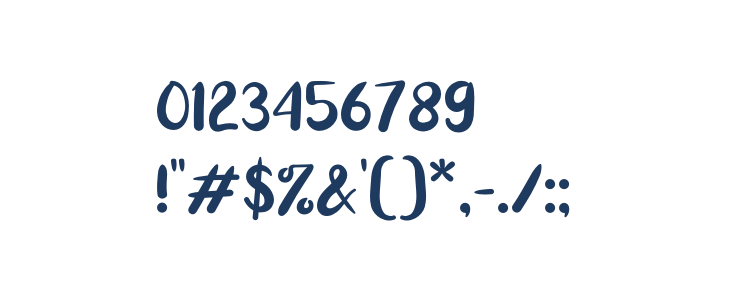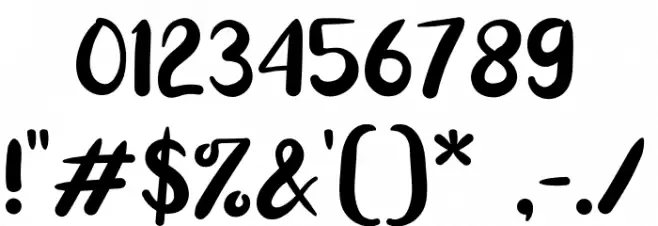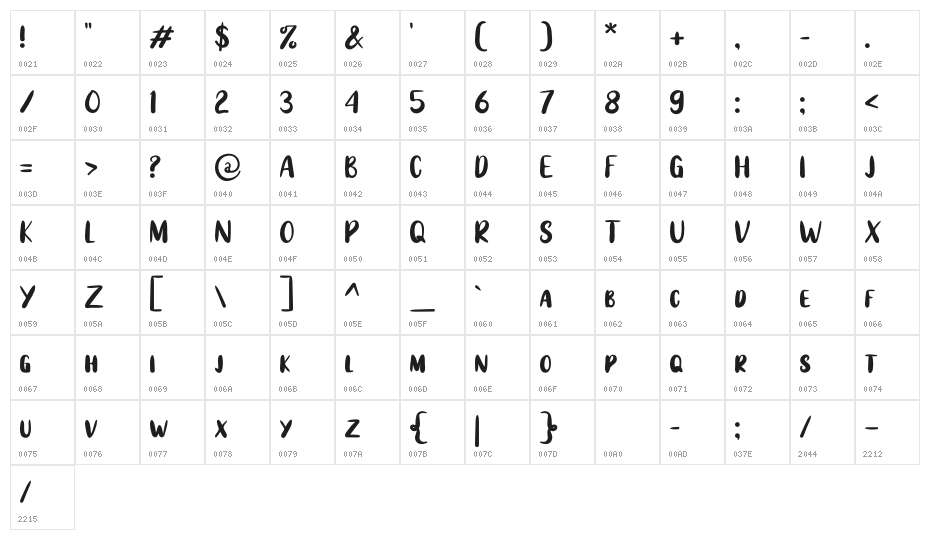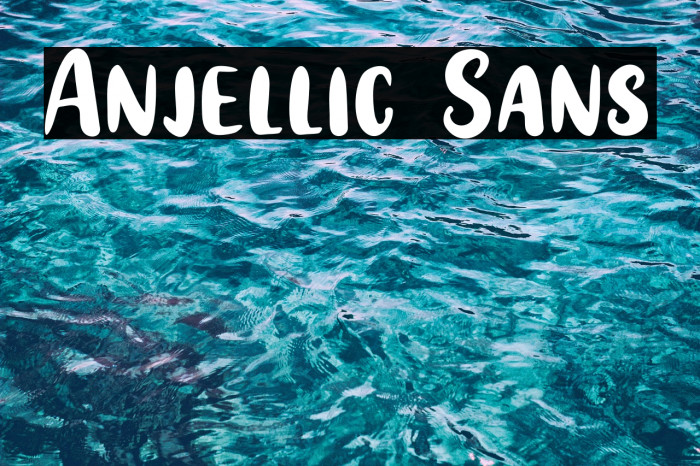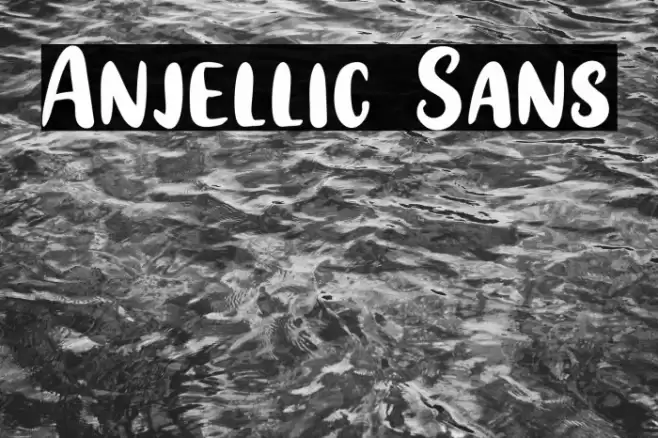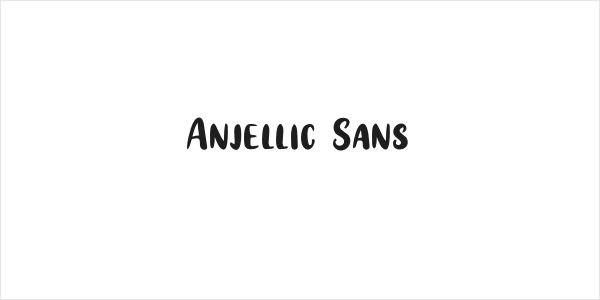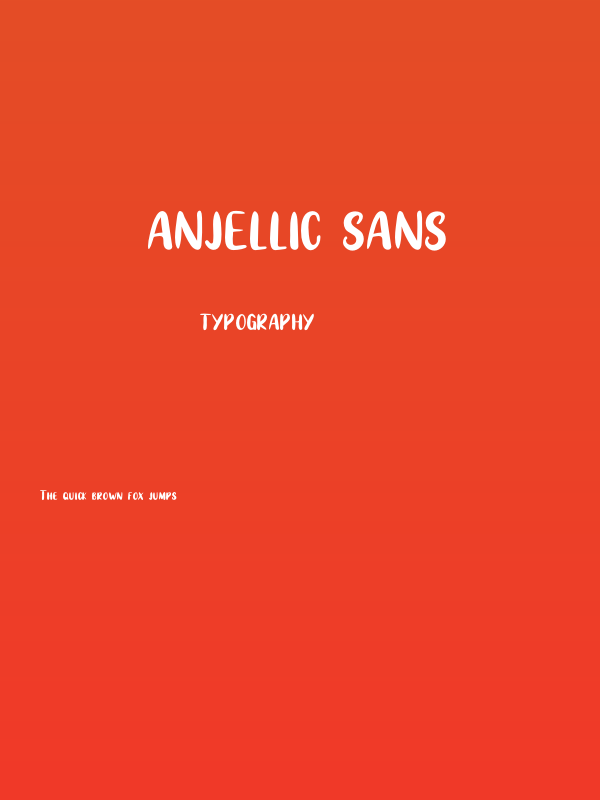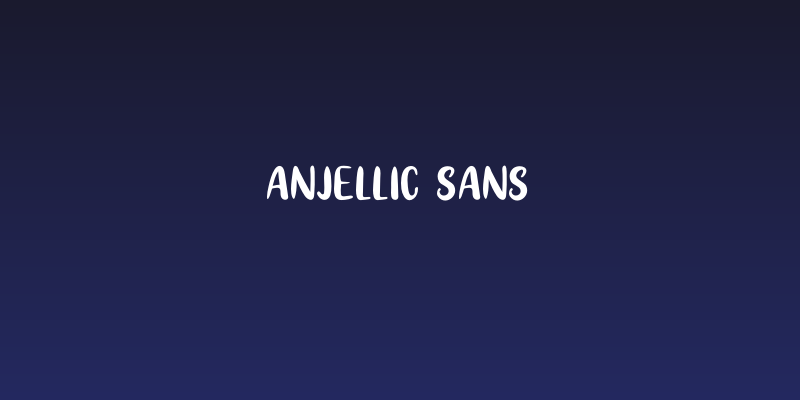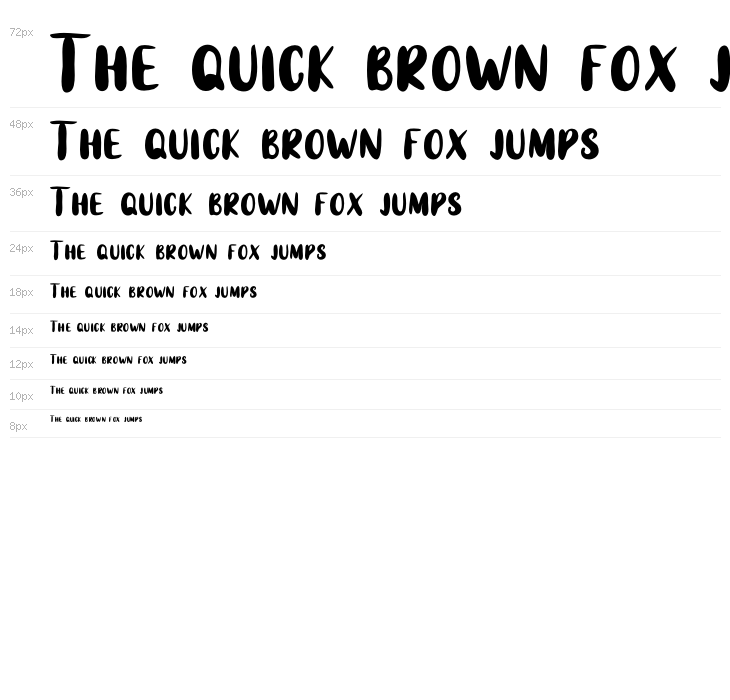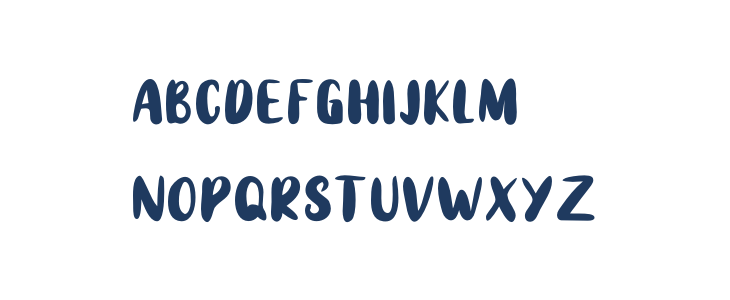
Anjellic Sans Font
Anjellic Sans Description
This font features a playful and bold handwritten style, characterized by its rounded and slightly irregular letterforms. The strokes are thick and consistent, giving it a strong presence on the page. The uppercase and lowercase letters maintain a cohesive look, with a slight slant that adds to its casual and friendly appearance. The numerals are clear and easy to read, matching the overall style of the alphabet. Special characters are included, maintaining the same bold and playful aesthetic. This font is well-suited for projects that require a touch of personality and approachability.
| Overall Style | Playful, Casual |
| Proposed Projects | Ideal for children's books, playful branding, greeting cards, and social media graphics. |